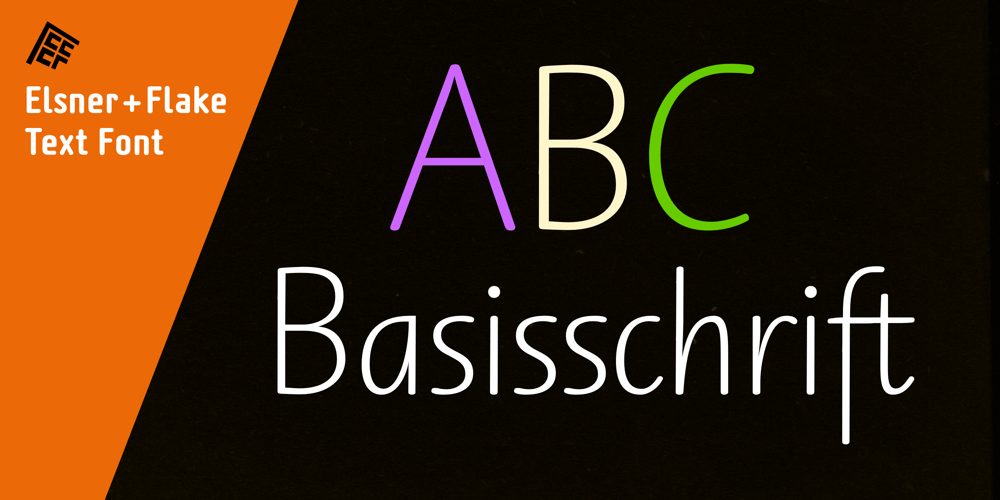
ABC Basisschrift Font Family was designed by Hans Eduard Meier and published by Elsner+Flake. ABC Basisschrift contains 1 styles and family package options. During the last ten years of his life, Hans Eduard Meier (dec. July 17, 2014), together with Max Schläpfer, developed an innovative concept of a new Swiss Schulschrift (handwriting script for schools) called ABC Basisschrift®. His life’s work is crowned by the fact that now, since the fall of 2014, and beginning in Lucerne, this new didactic will replace the old Schnürlischrift in Switzerland. In contrast with the Schnürlischrift, the idea is to guide a child in three steps to learning a personal handwriting. ABC Schule 1 is for the first grade, ABC 2 starts to introduce the first connections and ABC 4 Ligaturen is designed with many ligatures to serve as a good example for handwriting. ABC Schule is also available with ruling and for visually impaired students.This version of the Basisschrift®, available from here, is the original version by Hans Meier.